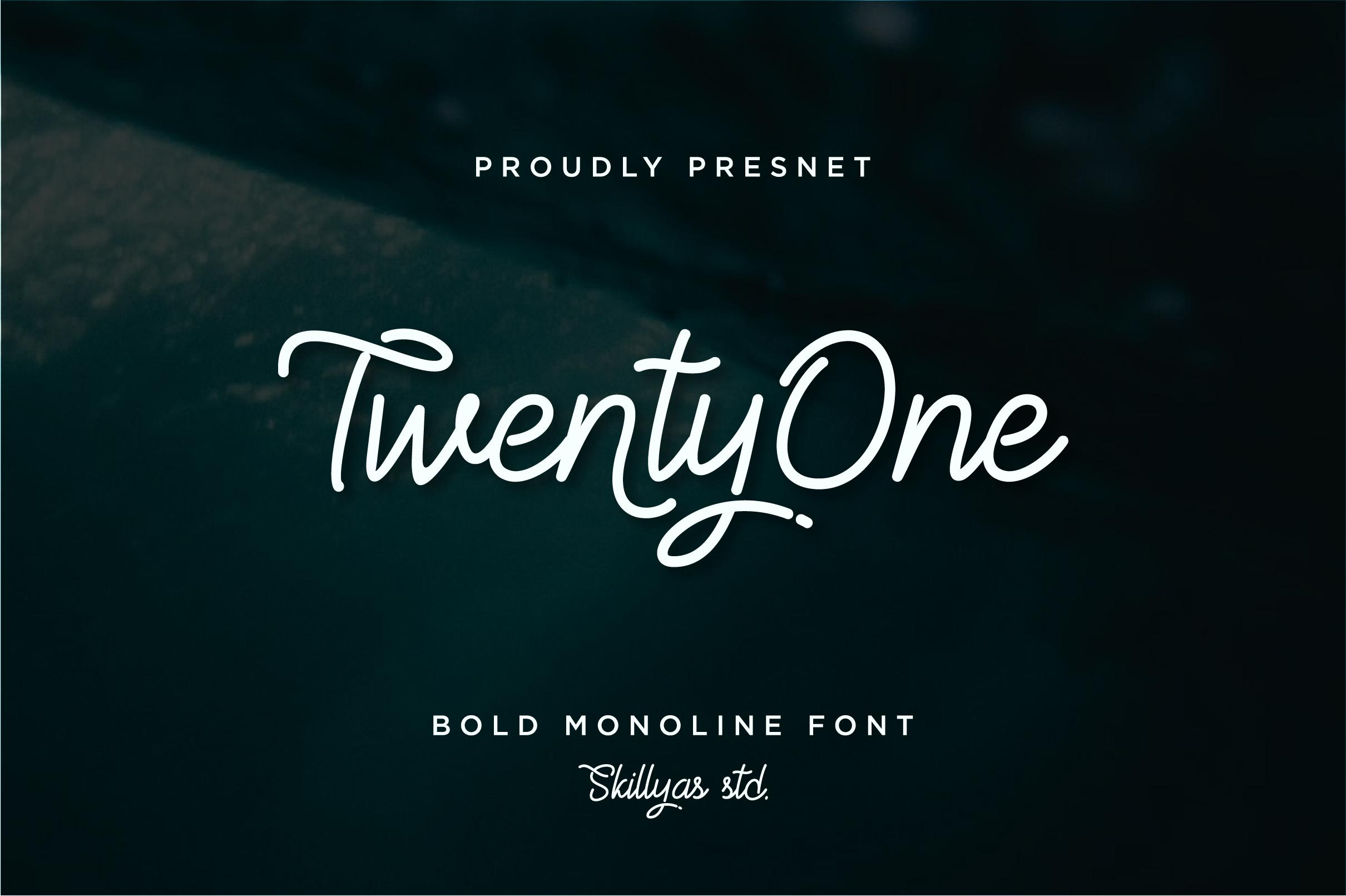
TwentyOne Font Description
TwentyOne feels playfully nostalgic and delivers an incredible vintage aesthetic. Use this handwritten font to add that special retro touch to any design idea you can think of! This font is PUA encoded which means you can access all of the glyphs and swashes with ease!